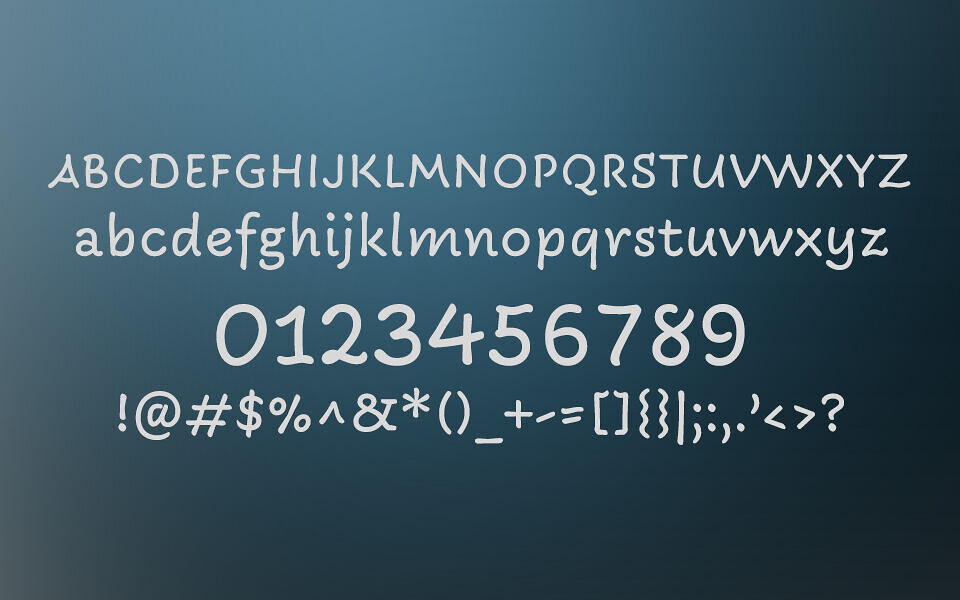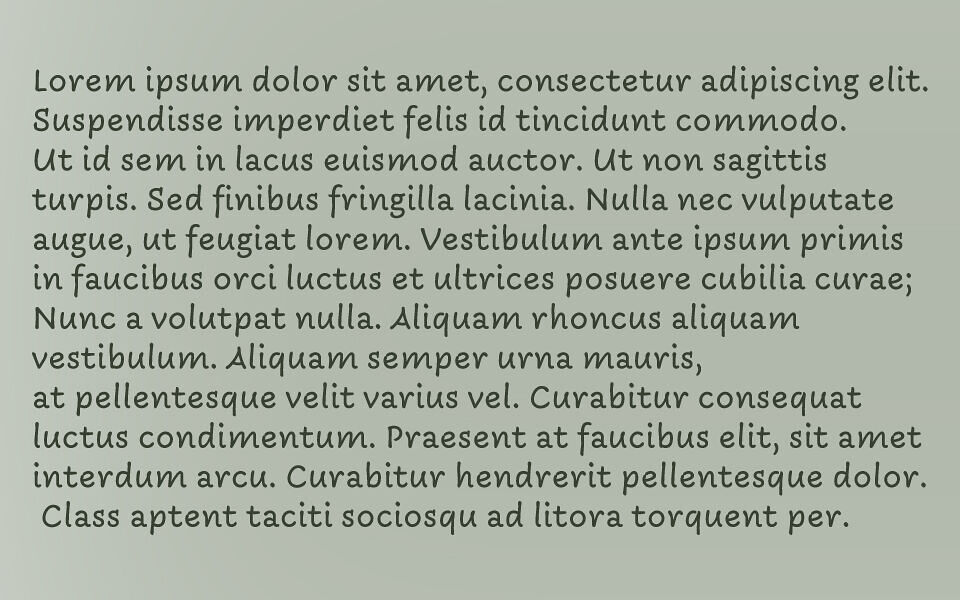
Dasa (ਦਸ) is an informal, handwriting-style font. When we write, our hands can move at many different speeds. Even though Dasa is a font—and not actual handwriting—text typed with it looks as if it has been written slowly, not in a hurried manner. Think of it as closer to “love letters” on the handwriting-spectrum, rather than a grocery shopping list.
This slowness leads to Dasa’s even and static-looking letterforms. Each letter in the font appears typographically-informed – they look very much like printed characters, not like the ones taught in elementary school penmanship classes. Dasa Latin-script letters are not joining; each one lives in its own space, with the exception of a few ligatures.
This font includes both Gurmukhi-script and Latin-script characters. This means that, in addition to Punjabi and English, Dasa can be used for most of the Western European languages that are written with the Latin alphabet, including Albanian, Czech, Danish, Dutch, Estonian, Finnish, French, German, Hungarian, Icelandic, Italian, Latvian, Lithuanian, Norwegian, Polish, Portuguese, Romanian, Slovak, Spanish, Swedish, Turkish, and Welsh.
The font includes one stylistic set, discretionary ligatures, and oldstyle figures available via the “onum” OpenType feature. Among other things, this stylistic set offers single-storey “a” and “g” glyphs.